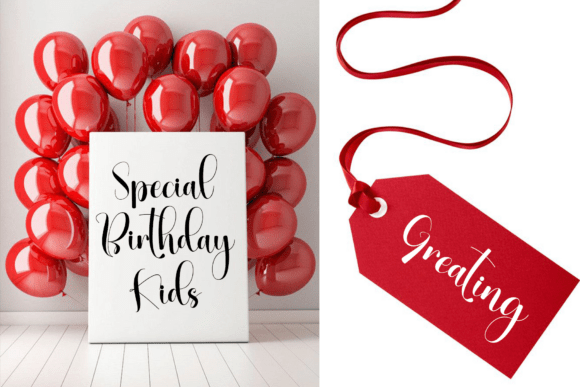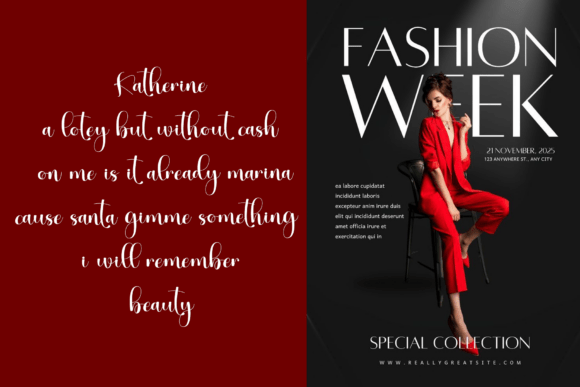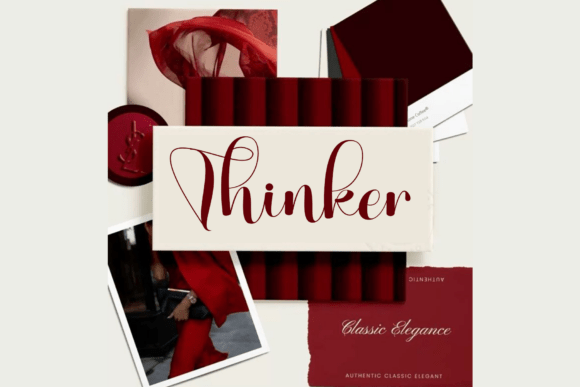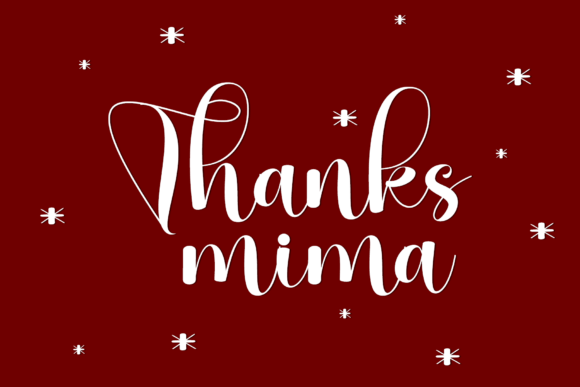
Unlock the Magic of Birthday Christmas Font: Elevate Your Designs with Style and Sophistication
Have you ever found yourself brainstorming ideas for a special someone’s birthday, only to be struck by the perfect blend of festive cheer and personal touch? That’s exactly what happens when you discover the Birthday Christmas Font – a masterful blend of elegance and whimsy that’s sure to elevate any design project.
Birthday Christmas Font is a stunning, modern handwritten script that exudes a sense of sophistication and romance. Its smooth, fluid strokes and lovely ornamental curves make it the perfect choice for custom sublimation designs, boutique branding, and personalized gifts. Whether you’re a seasoned designer or a creative enthusiast, this font is a valuable addition to your toolkit – and we can’t wait to show you why.
With its consistent weight and clean connections, Birthday Christmas Font ensures excellent legibility, making it a versatile choice for any project that demands a touch of elegance and refinement.
Birthday Christmas Font Key Features
- Unique Characteristics: The Birthday Christmas Font features a unique blend of birthday and Christmas elements, including balloons, candles, and snowflakes, making it perfect for holiday-themed designs.
- Font Style: The font is available in a bold and regular style, providing users with flexibility in their design choices.
Review of Birthday Christmas Font
I must say, I was initially drawn to the Birthday Christmas Font due to its unique blend of festive and celebratory vibes ✨. The font does a great job of capturing the excitement and joy of the holiday season, making it perfect for birthday invitations, holiday cards, and social media posts.
Some of the things that I appreciate about this font include:
- Its playful and energetic feel, which is perfect for adding a pop of fun to your designs ✨
- Its versatility, which can be used for a variety of occasions, from birthdays to holidays
- Its modern and sleek design, which makes it easy to pair with other fonts and graphics
However, there are a few limitations to consider ⚠️:
- The font may be a bit too bold and overwhelming for some designs, so be sure to use it sparingly
- The font may not be suitable for formal or professional designs, such as business cards or resumes
Overall, I think the Birthday Christmas Font is a great addition to any designer’s toolkit, but it’s essential to use it thoughtfully and in context. With its unique blend of festive and celebratory vibes, it’s sure to add a touch of excitement to your designs ✨.
The Birthday Christmas Font is perfect for creating festive holiday cards, party invitations, and social media posts.
For the most effective use, pair the font with bold, bright colors and playful graphics.
Experiment with different font sizes and styles to create a unique and eye-catching design.
Q: What is the recommended font size and line height for using the Birthday Christmas Font in digital designs?
We recommend using the Birthday Christmas Font at a minimum font size of 14px and a line height of 1.5 to ensure optimal readability on digital screens. However, feel free to adjust these settings based on your design’s specific requirements and audience.